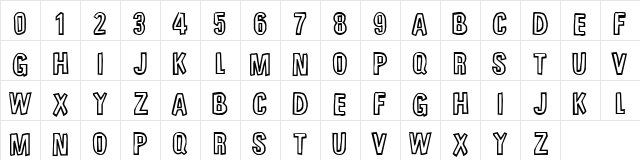
Unfinished Sympahthy Regular
Design Context for Unfinished Sympahthy Typeface
Unfinished Sympahthy takes a measured approach to typography — its balanced proportions and neutral character make it a reliable workhorse for both digital and print work.
Pro Tip: Use Unfinished Sympahthy in both headline and body roles to test its range before committing to a single application.